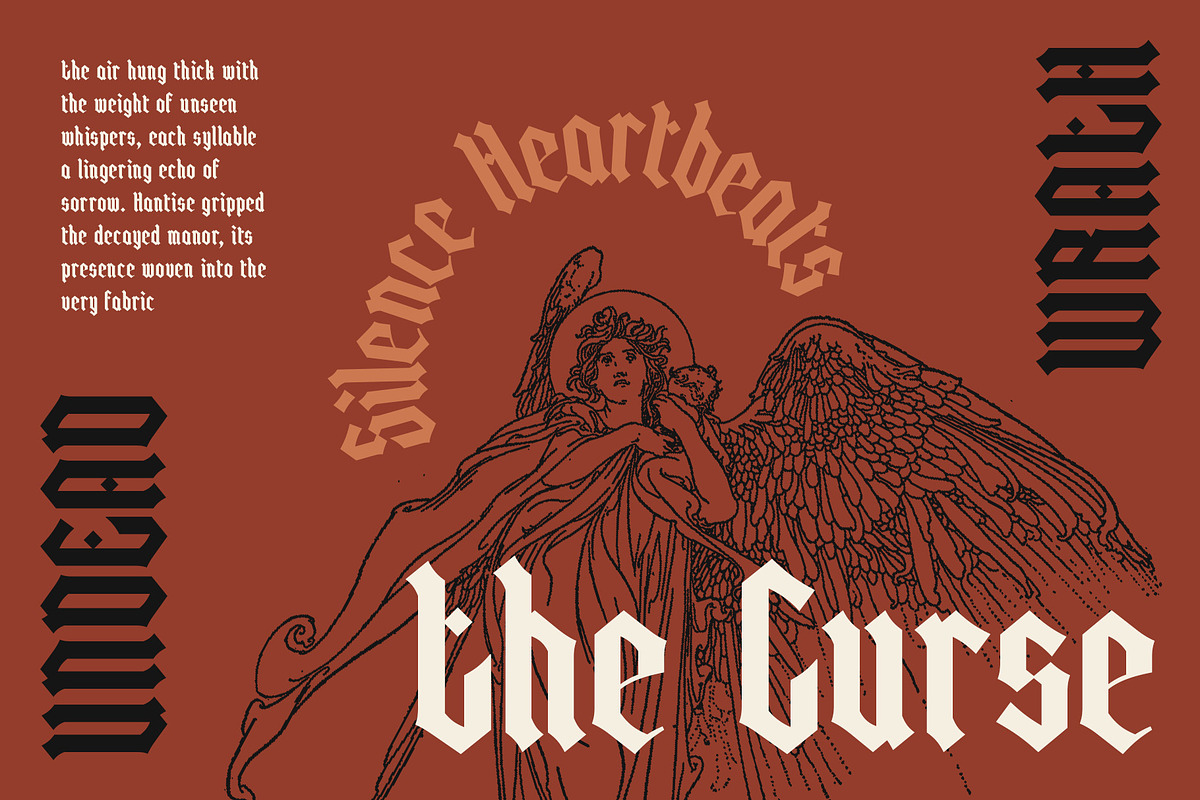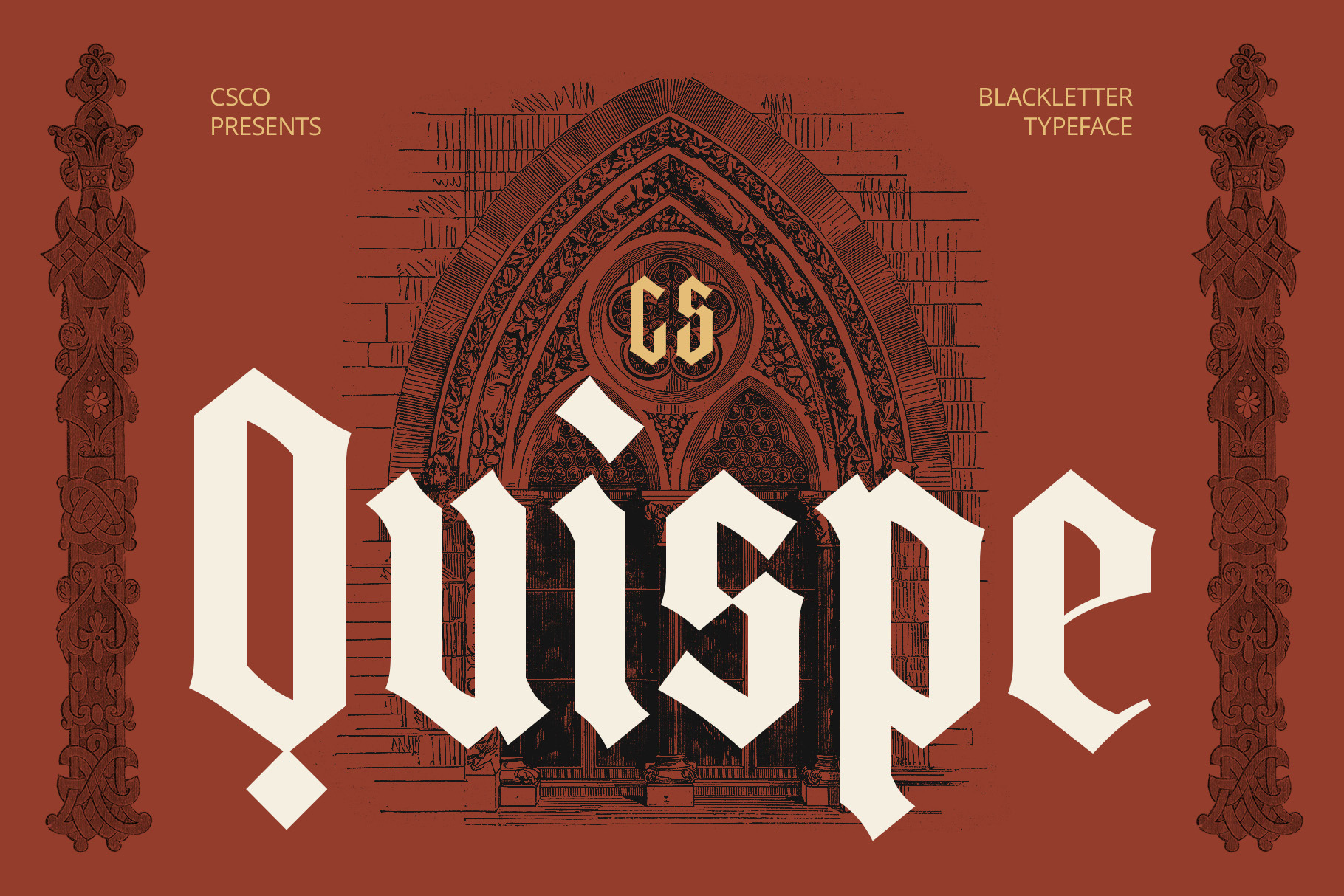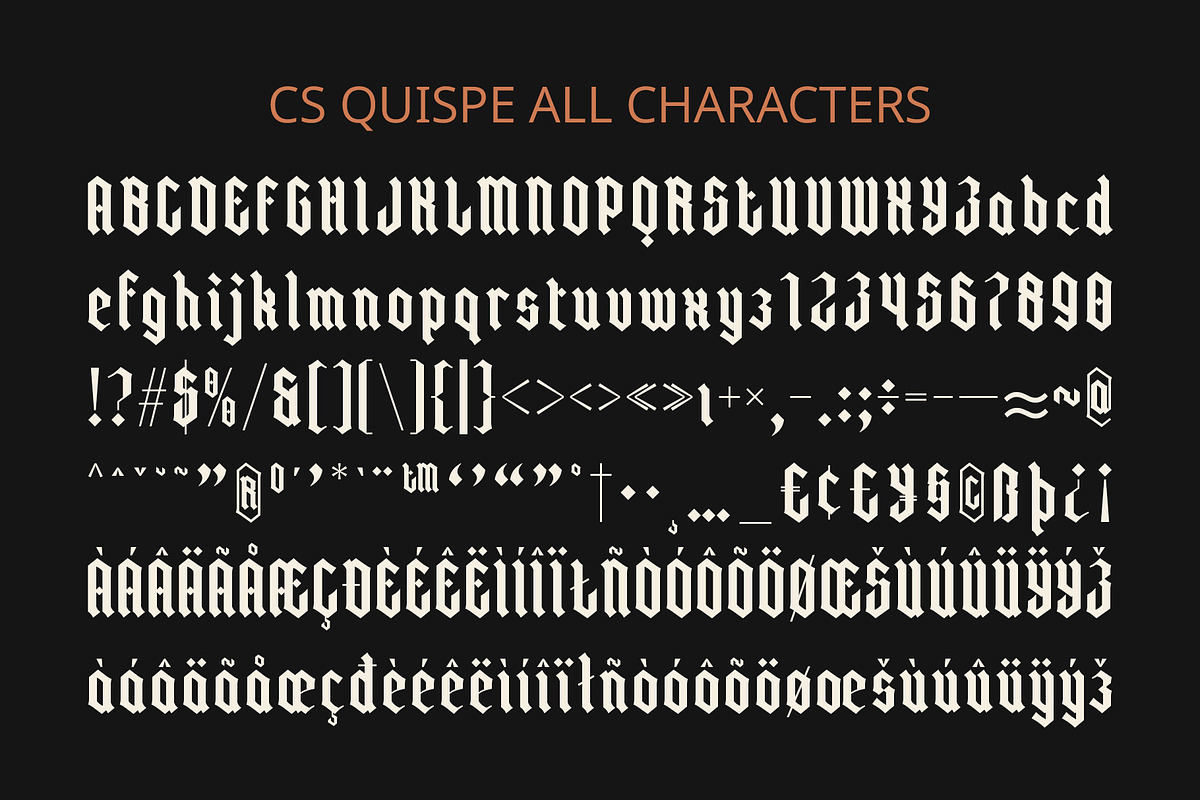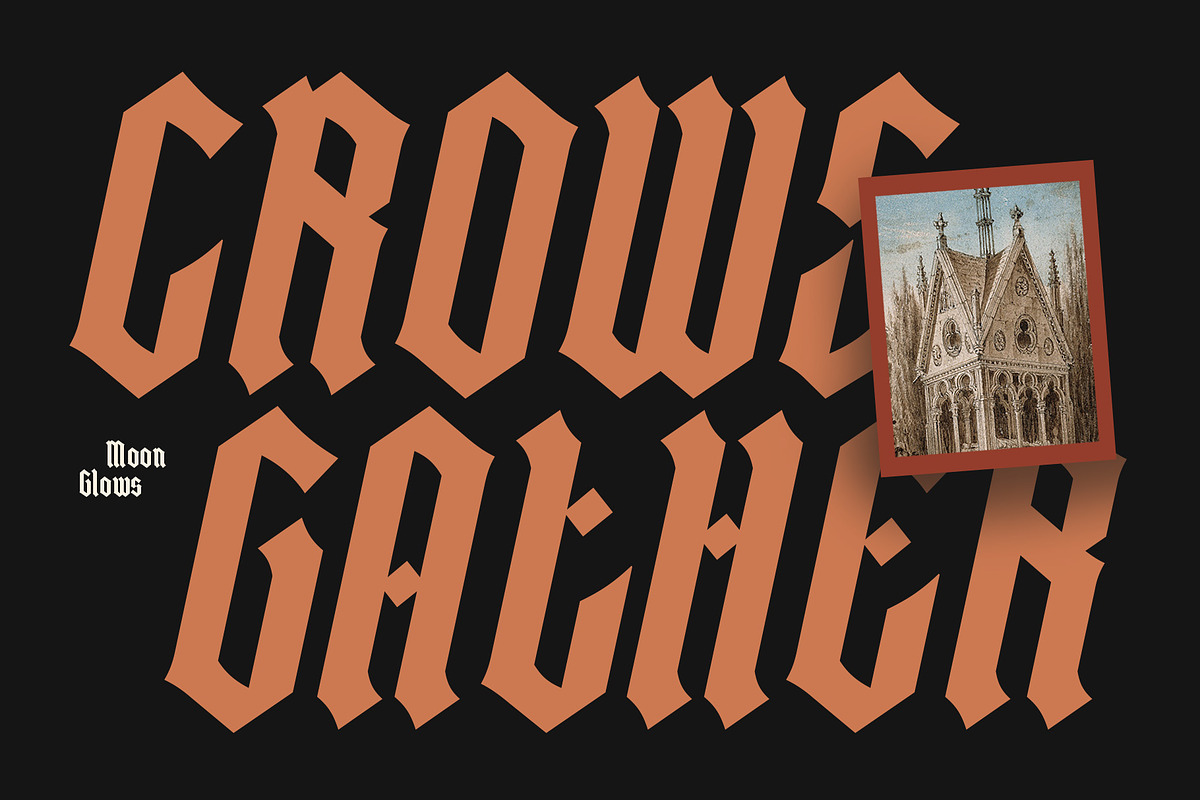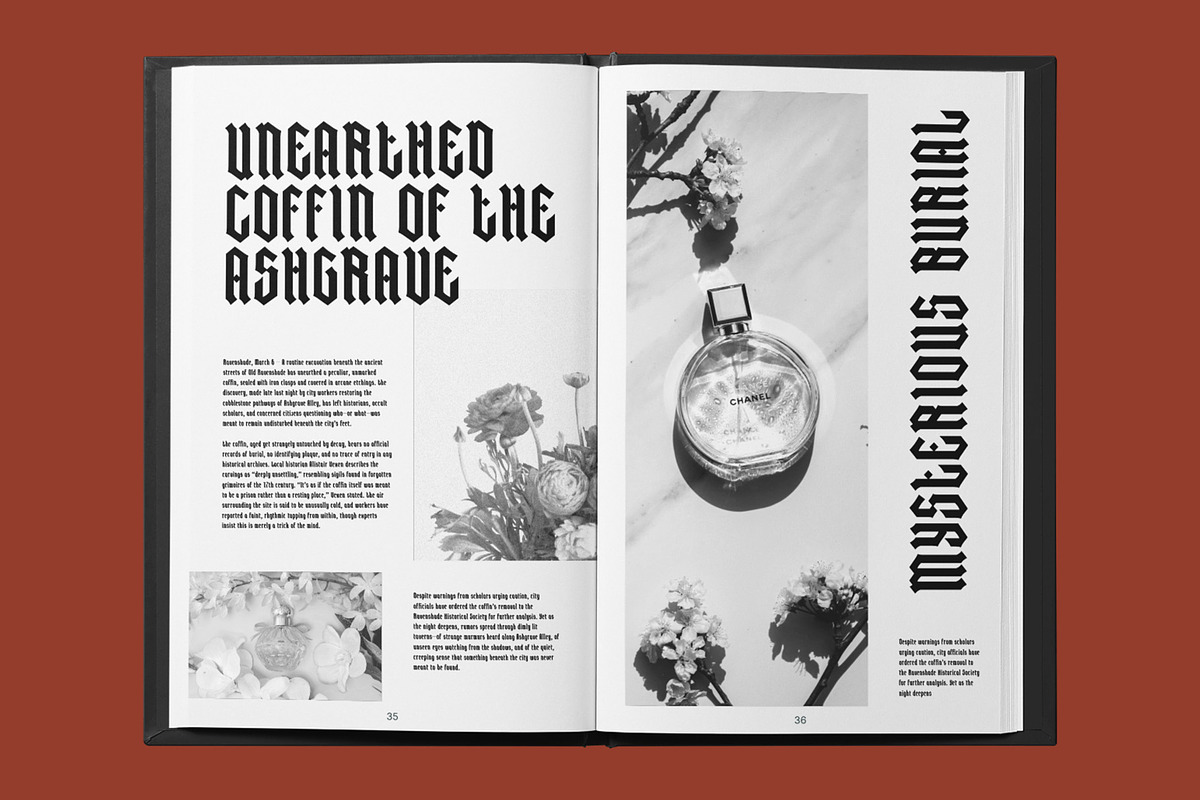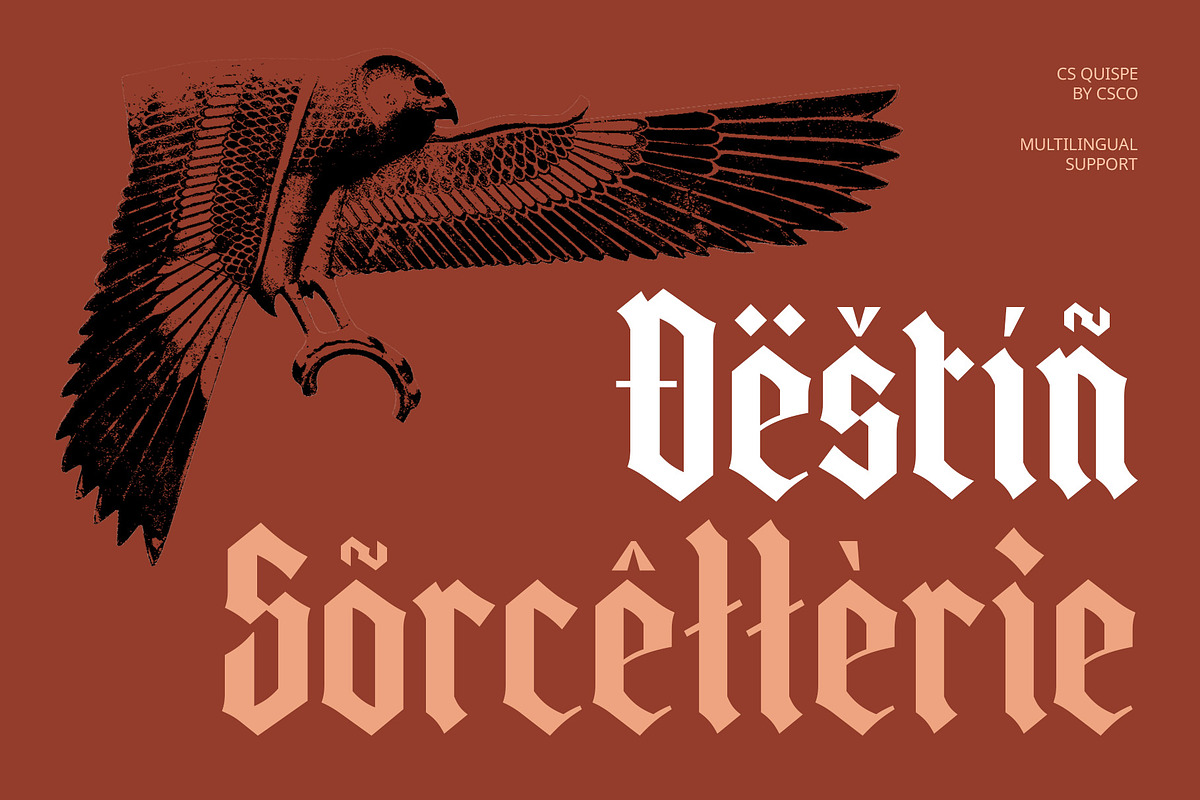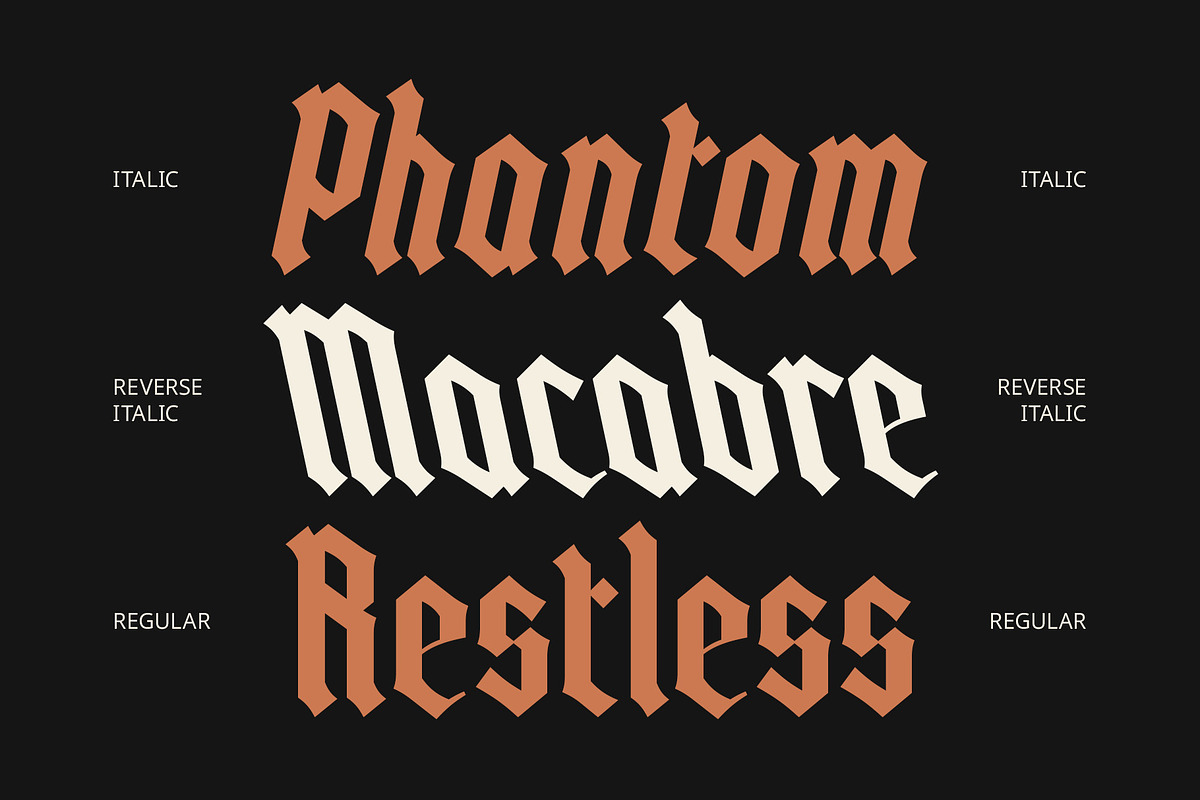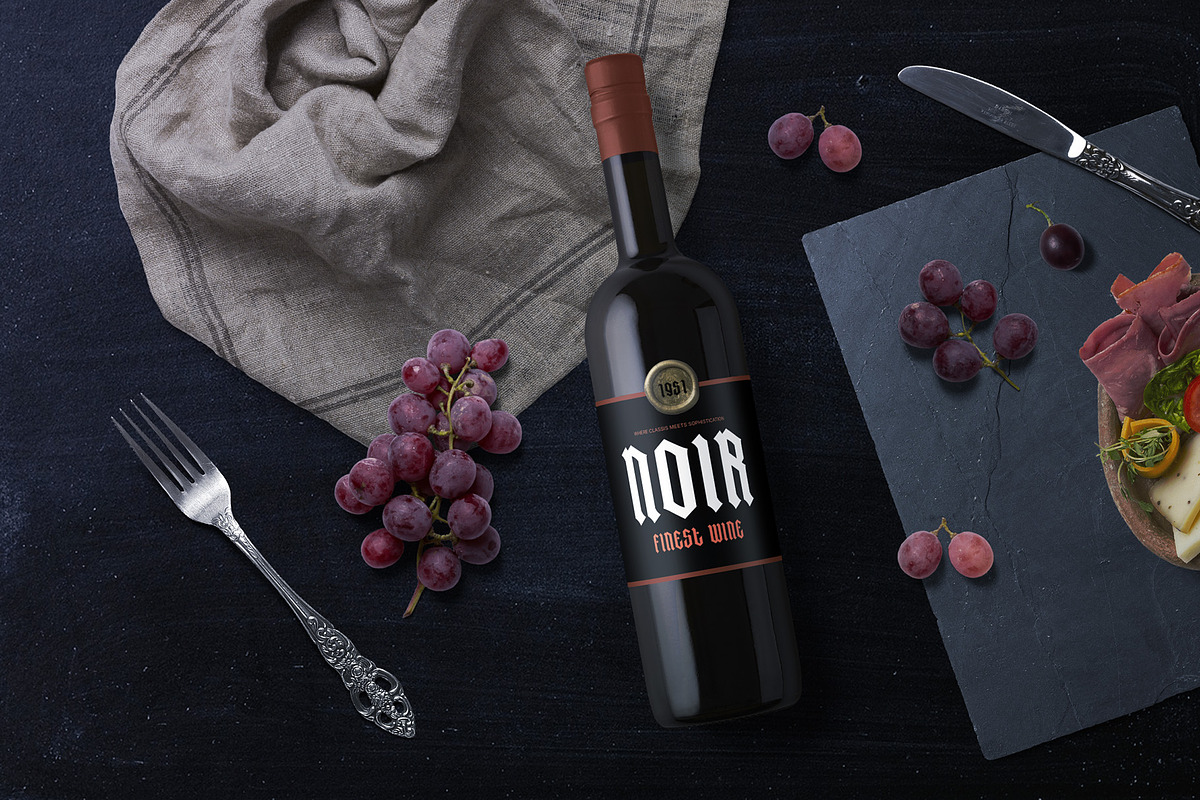
CS Quispe – Gothic Font
CS Quispe – A Bold and Striking Gothic Font
A Modern Gothic Typeface with Timeless Appeal CS Quispe is a contemporary gothic display font that blends traditional gothic influences with a modern edge. With its sharp angles, bold strokes, and intricate details, it evokes a sense of mystery, elegance, and power. Perfect for branding, album covers, fashion labels, and high-impact visuals.
Distinctive Letterforms for Maximum Impact Featuring angular structures, crisp edges, and thick strokes, CS Quispe stands out with a bold yet refined aesthetic. Despite its striking style, the font maintains high readability, making it ideal for headlines, posters, and statement pieces. Its dramatic contrast and precise detailing add a unique and sophisticated touch to any creative project.
Perfect for Branding and Statement Designs CS Quispe is the perfect choice for edgy and daring branding. Whether used in luxury streetwear, high-fashion editorials, or music-related visuals, it enhances the visual impact of any project. Its bold and gothic charm makes it particularly suitable for rock bands, tattoo designs, gaming graphics, and alternative culture branding.
Versatile for Dark and Elegant Themes With its fusion of gothic heritage and contemporary styling, CS Quispe adapts effortlessly across dark, elegant, and rebellious design aesthetics. Whether you’re aiming for vintage gothic themes, modern alternative branding, or bold statement typography, this font ensures your designs make a lasting impression.